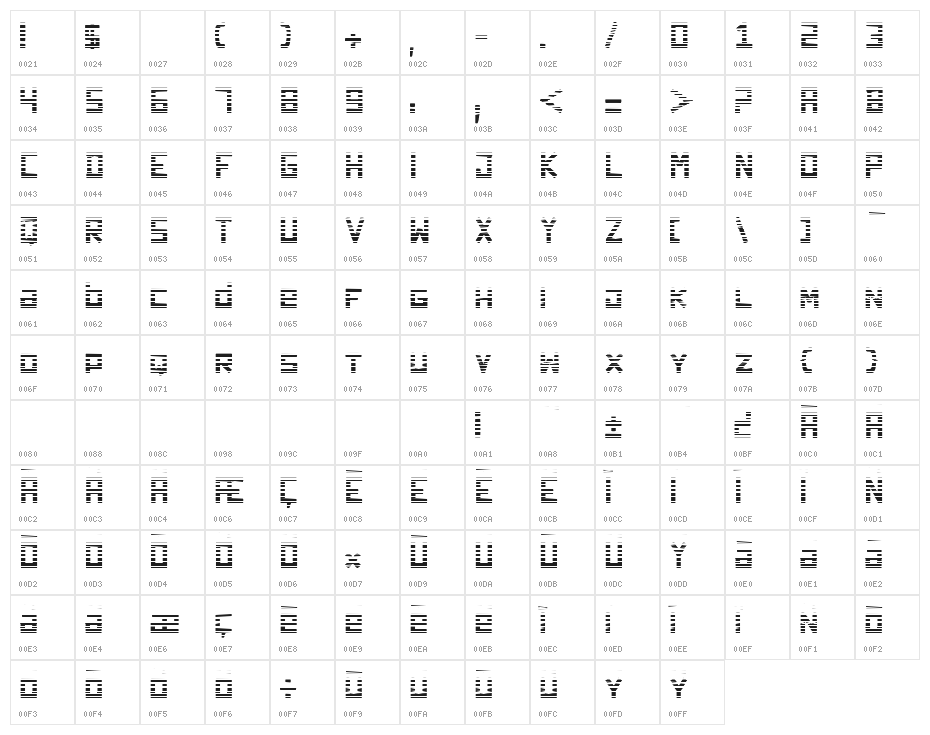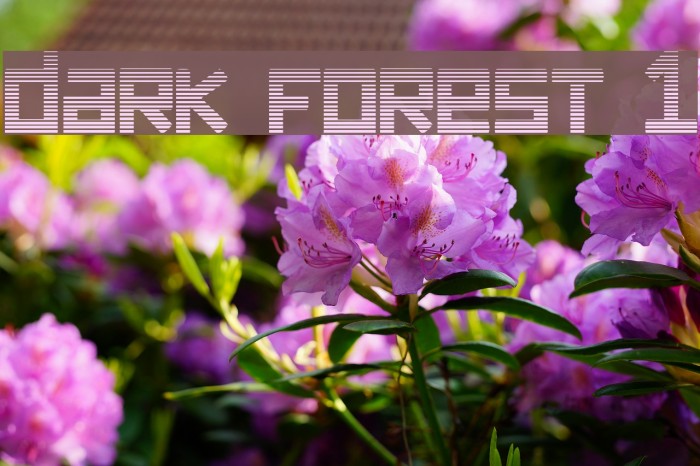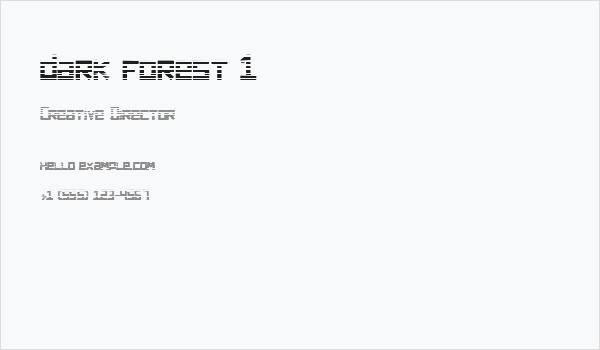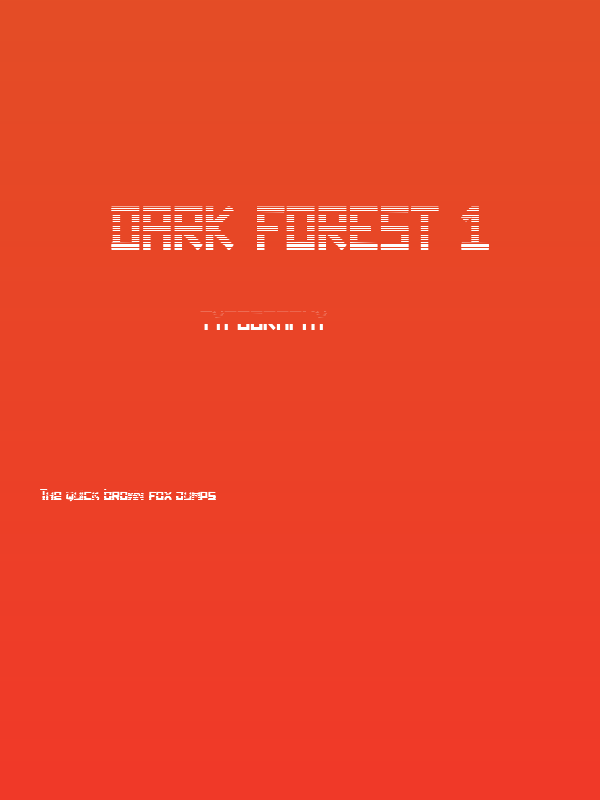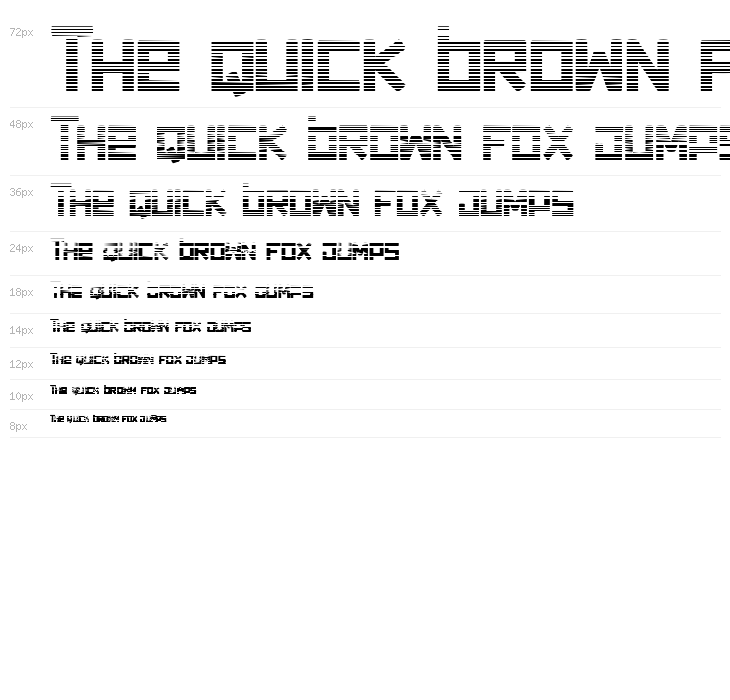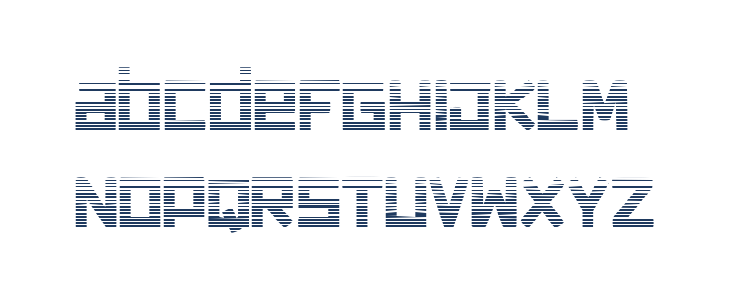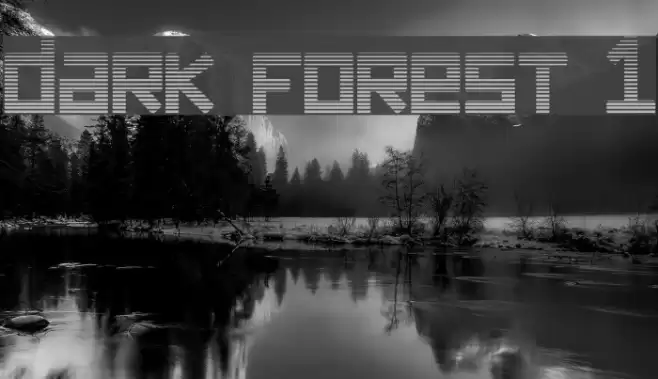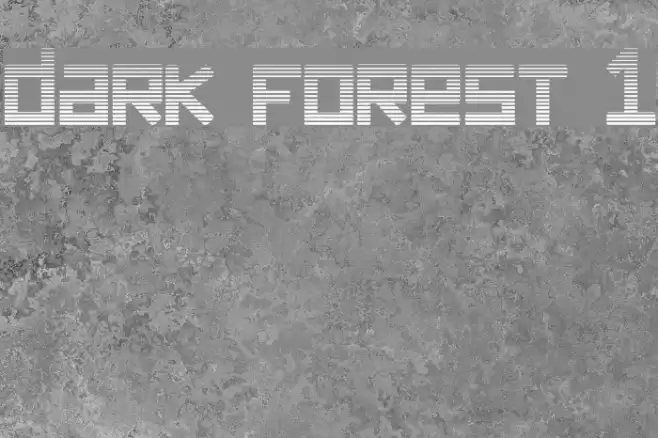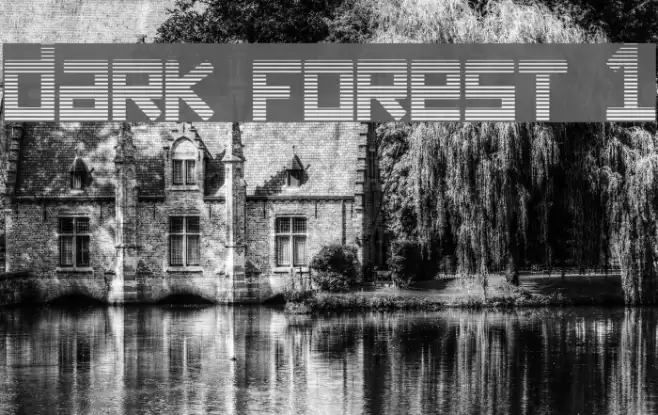
dark forest 1 Font
dark forest 1 Description
This font features a unique, futuristic design characterized by horizontal lines that create a striped effect across each character. The geometric structure of the letters gives it a modern and digital appearance, reminiscent of early computer graphics or sci-fi themes. The uppercase and lowercase letters maintain a consistent style, with sharp angles and a blocky form. Numbers and special characters follow the same design principles, ensuring uniformity across all glyphs. The horizontal striping adds a dynamic visual interest, making it stand out in digital and print media.
| Proposed Projects | Ideal for sci-fi themed projects, digital art, video game interfaces, and technology branding. |